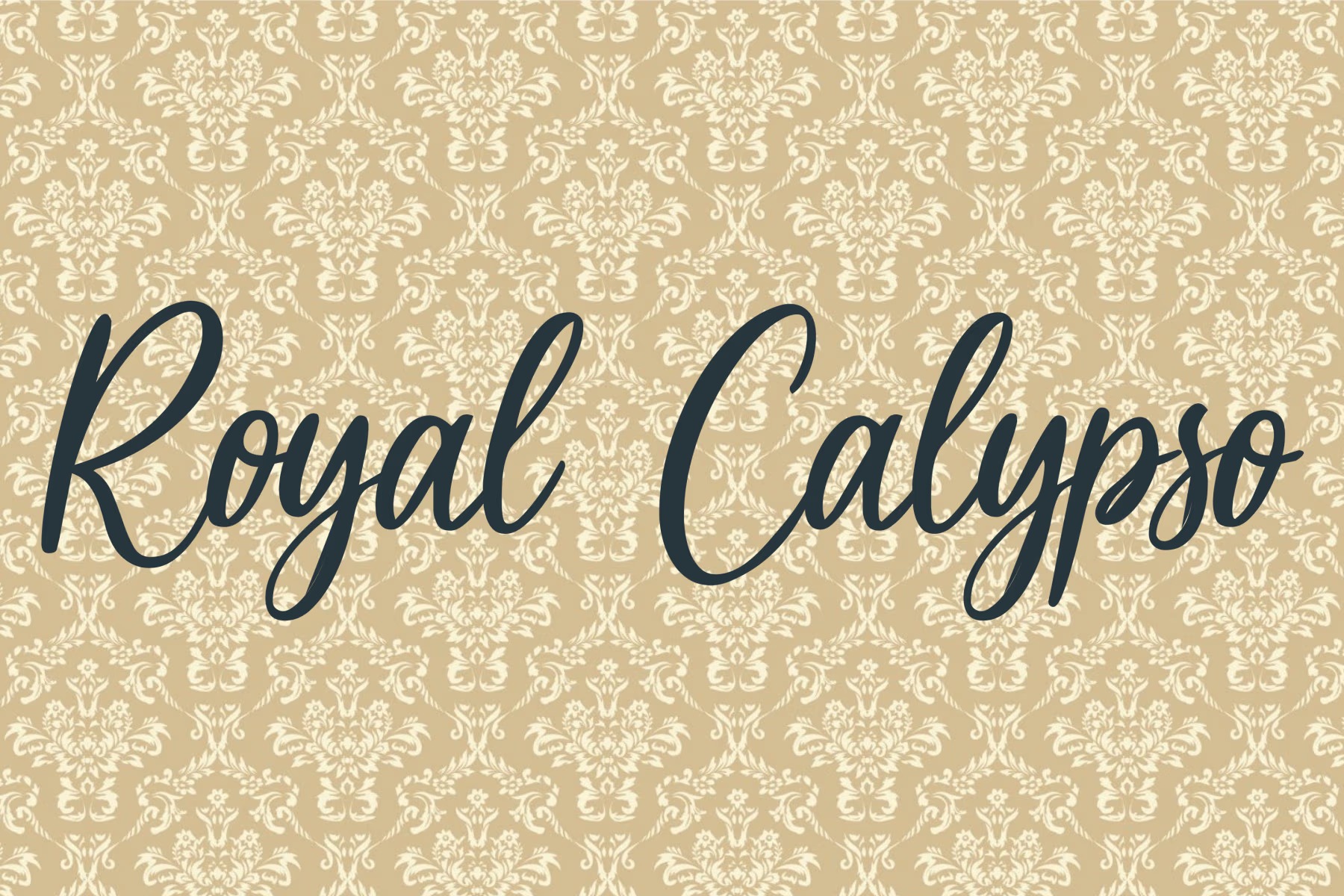
Royal Calypso Font
Royal Calypso Font is a premium-quality font developed to enhance your work with a polished, modern, and visually elevated look. Royal Calypso is a playful cursive script font created by BlackFridayFont, featuring smooth, connected strokes and a hand-drawn feel that adds charm and personality to any design. It works beautifully for headlines, invitations, logos, social media graphics, and decorative typography.